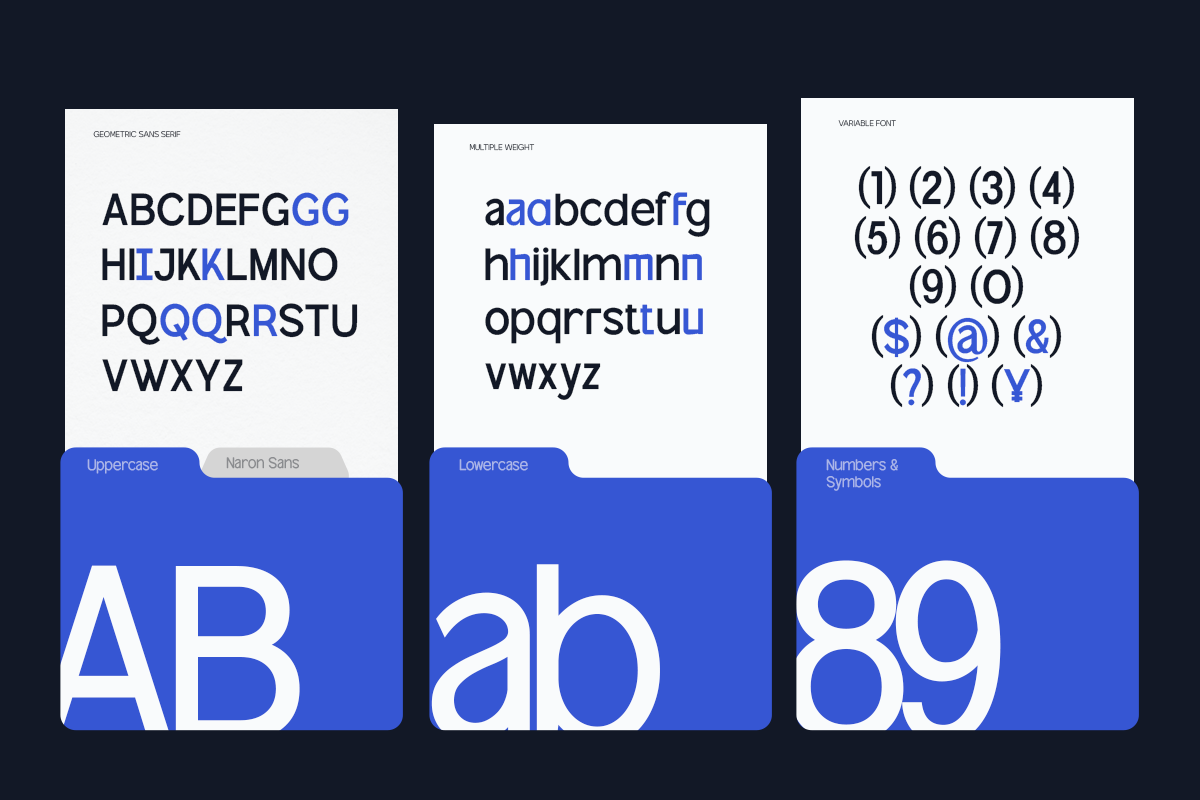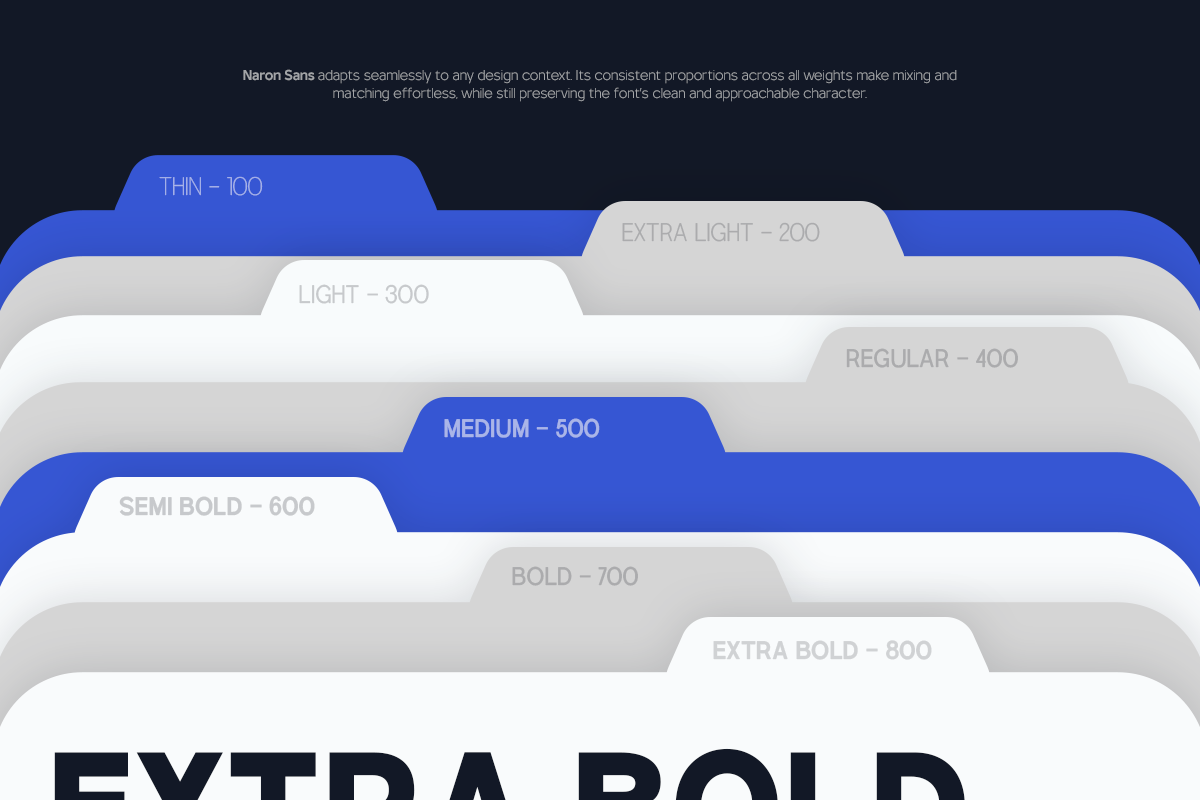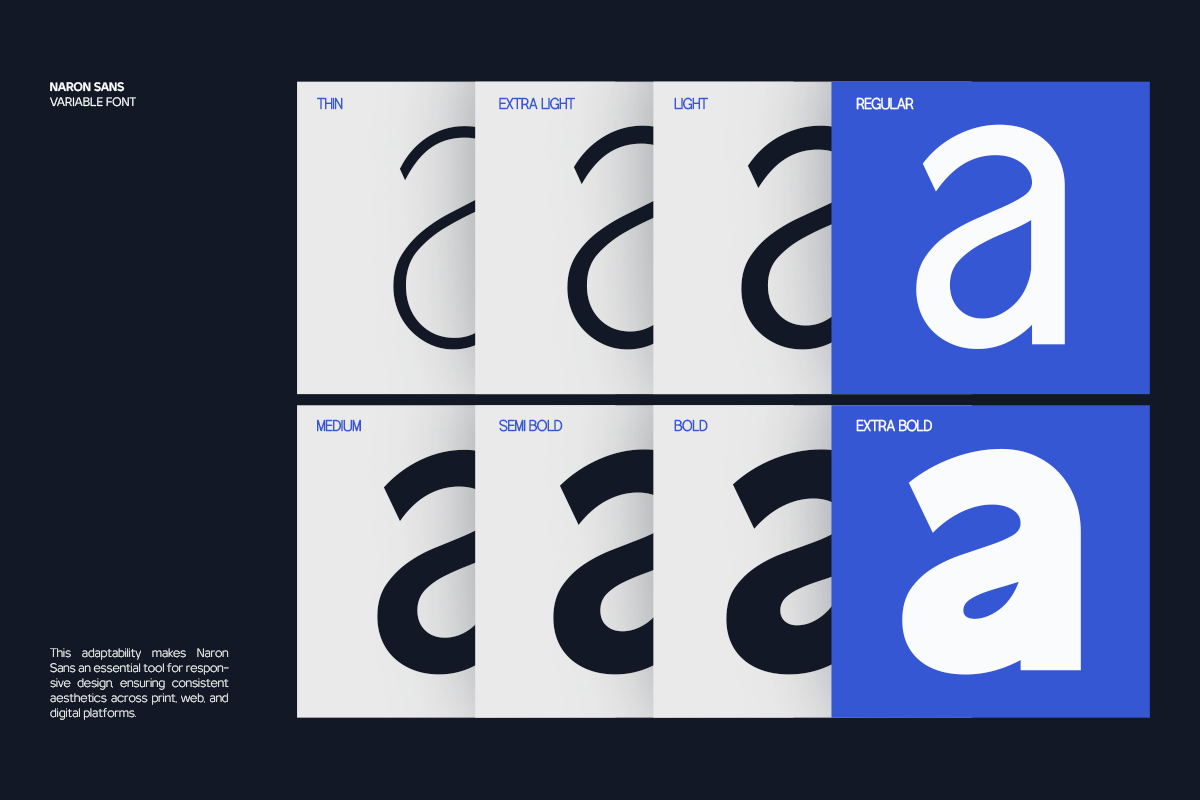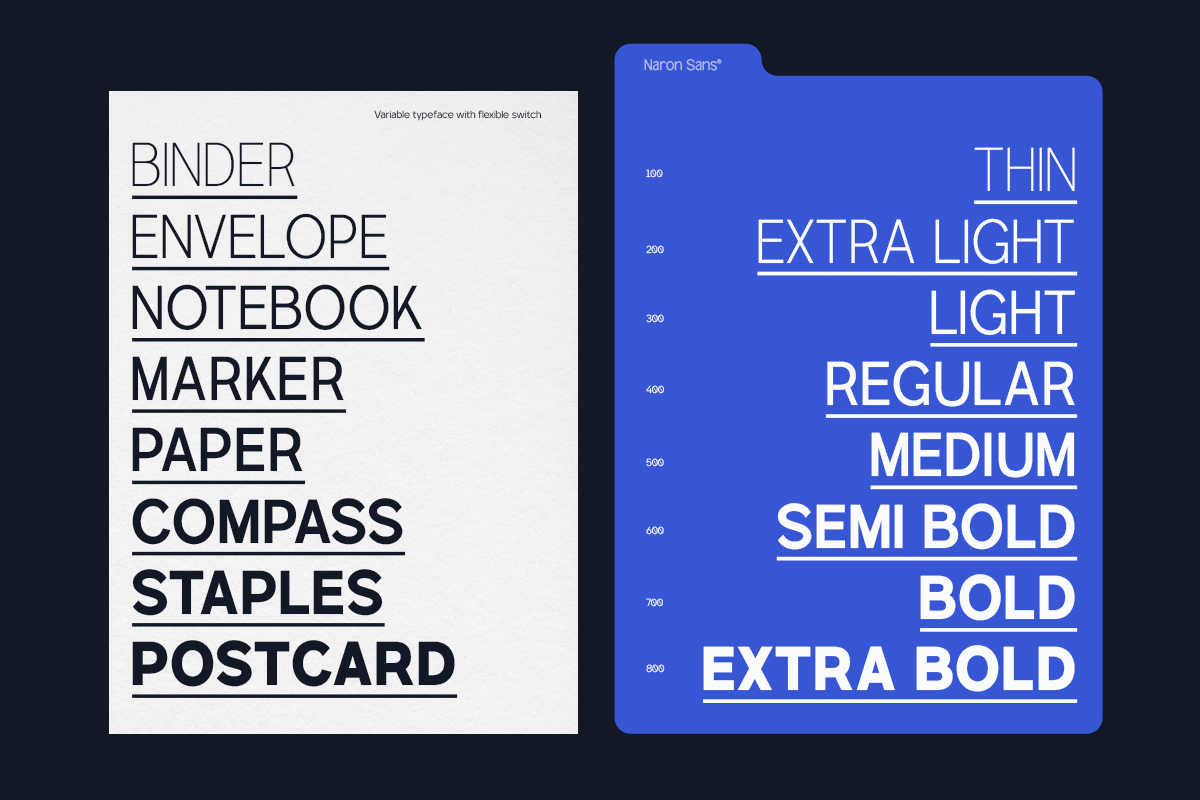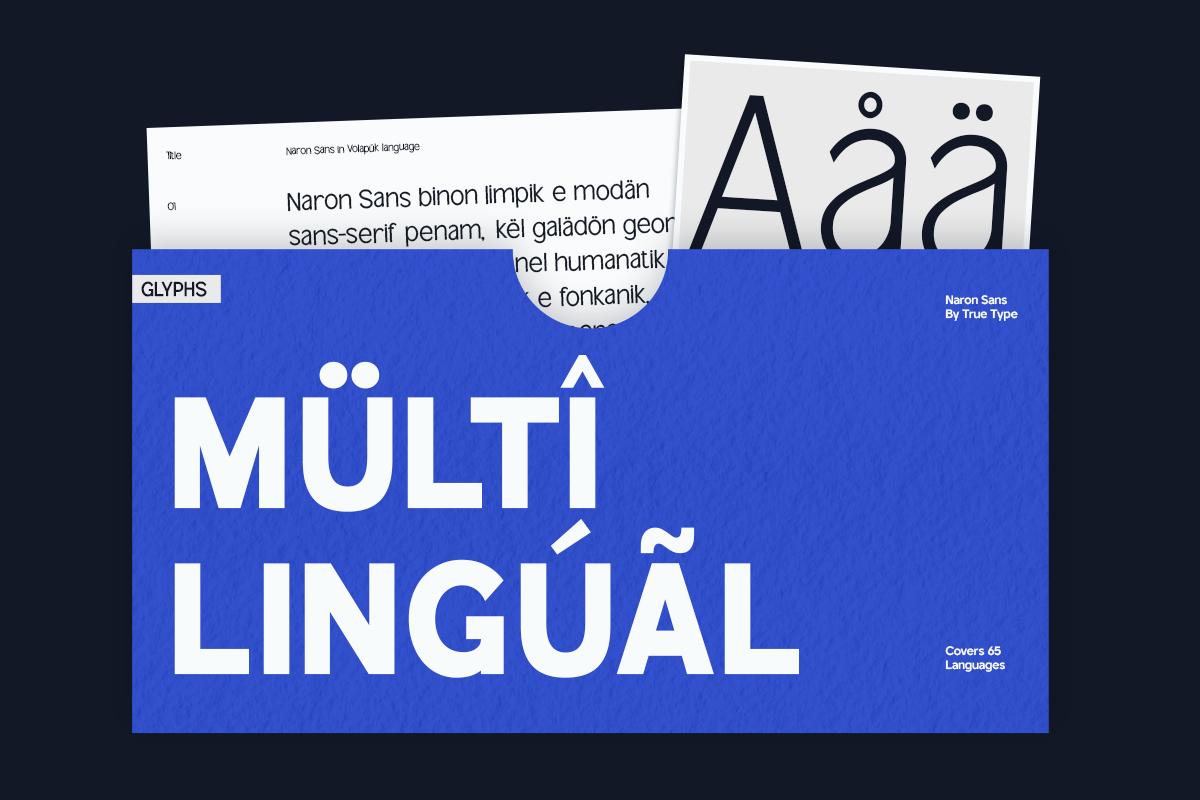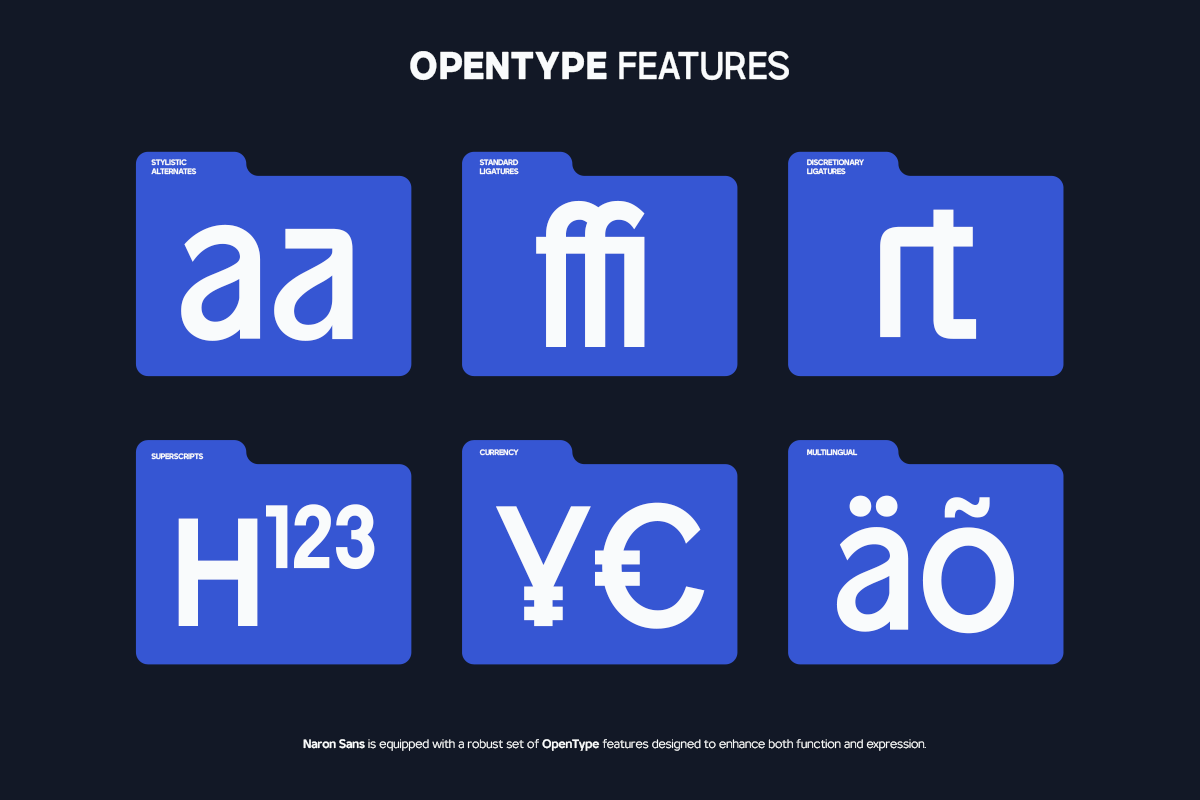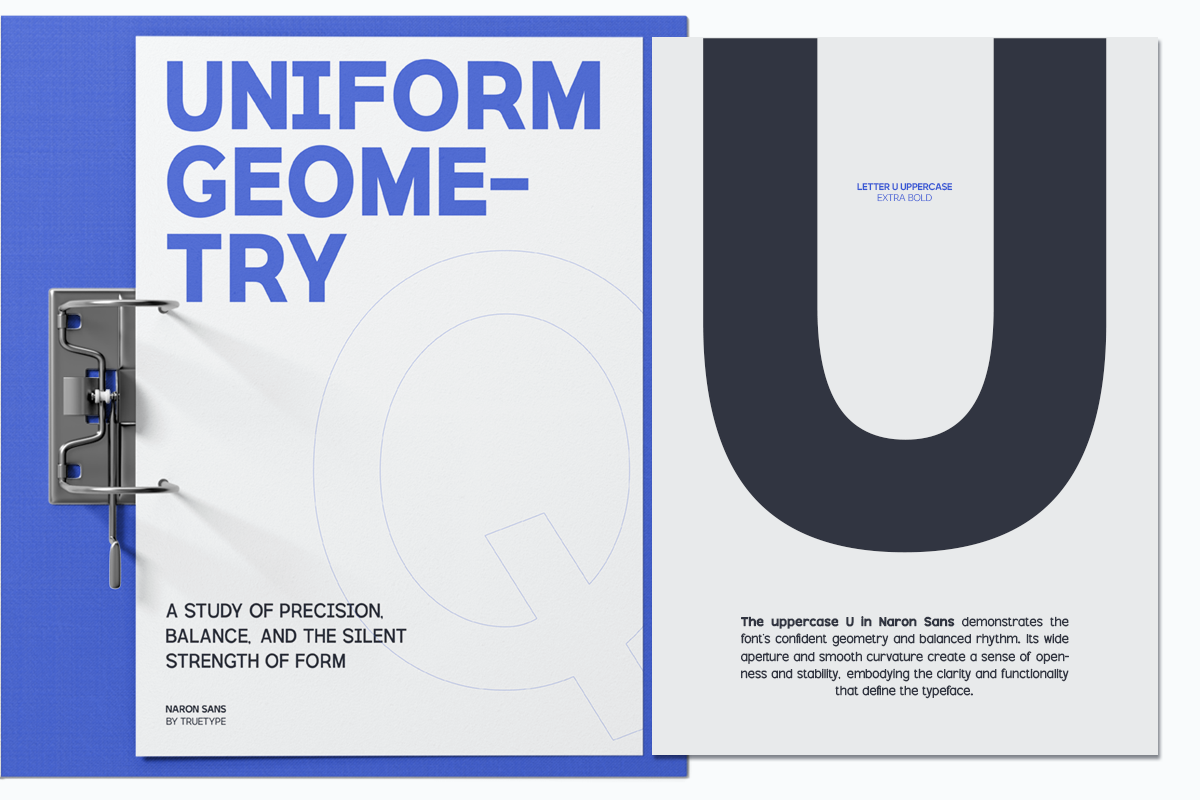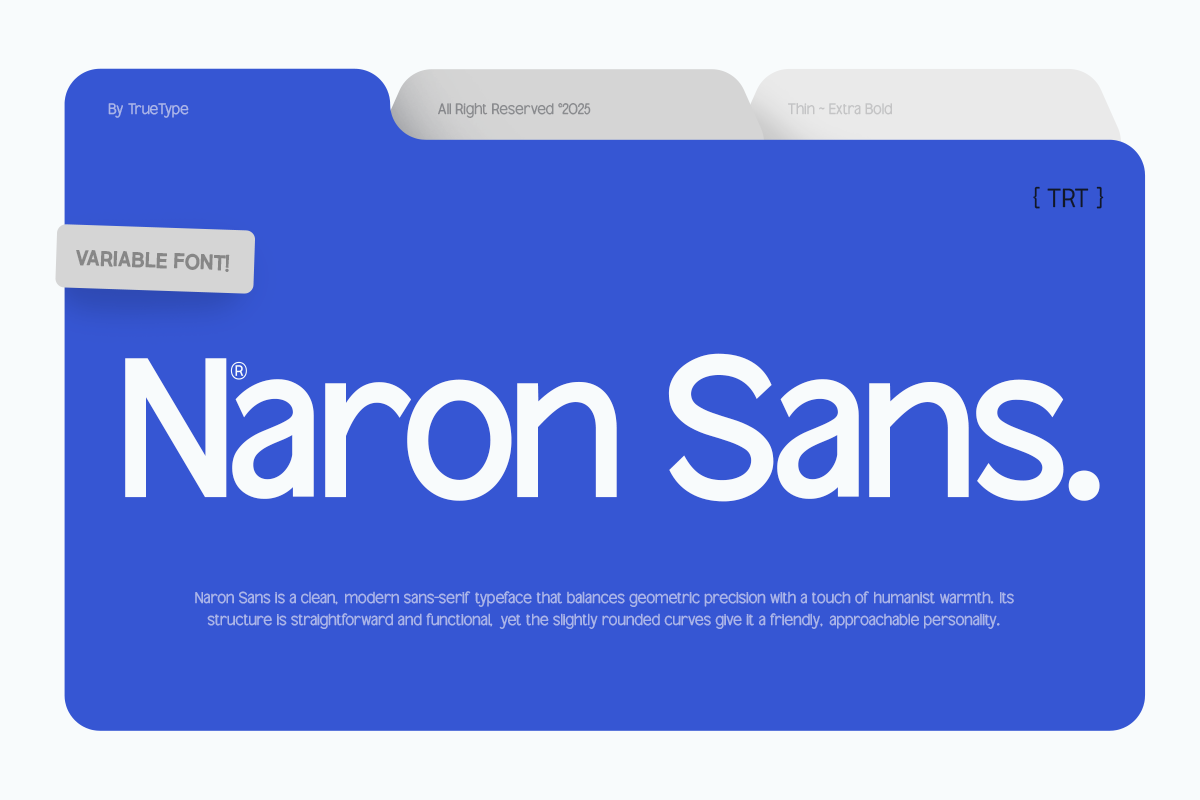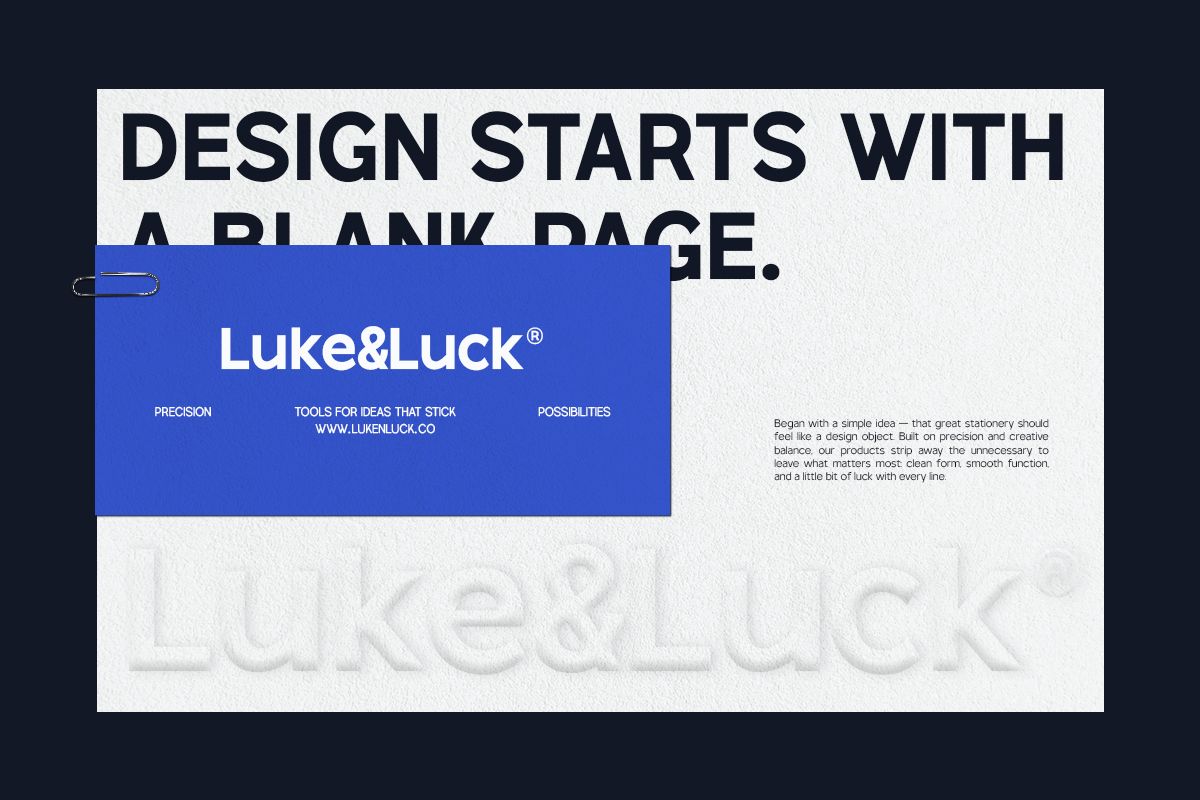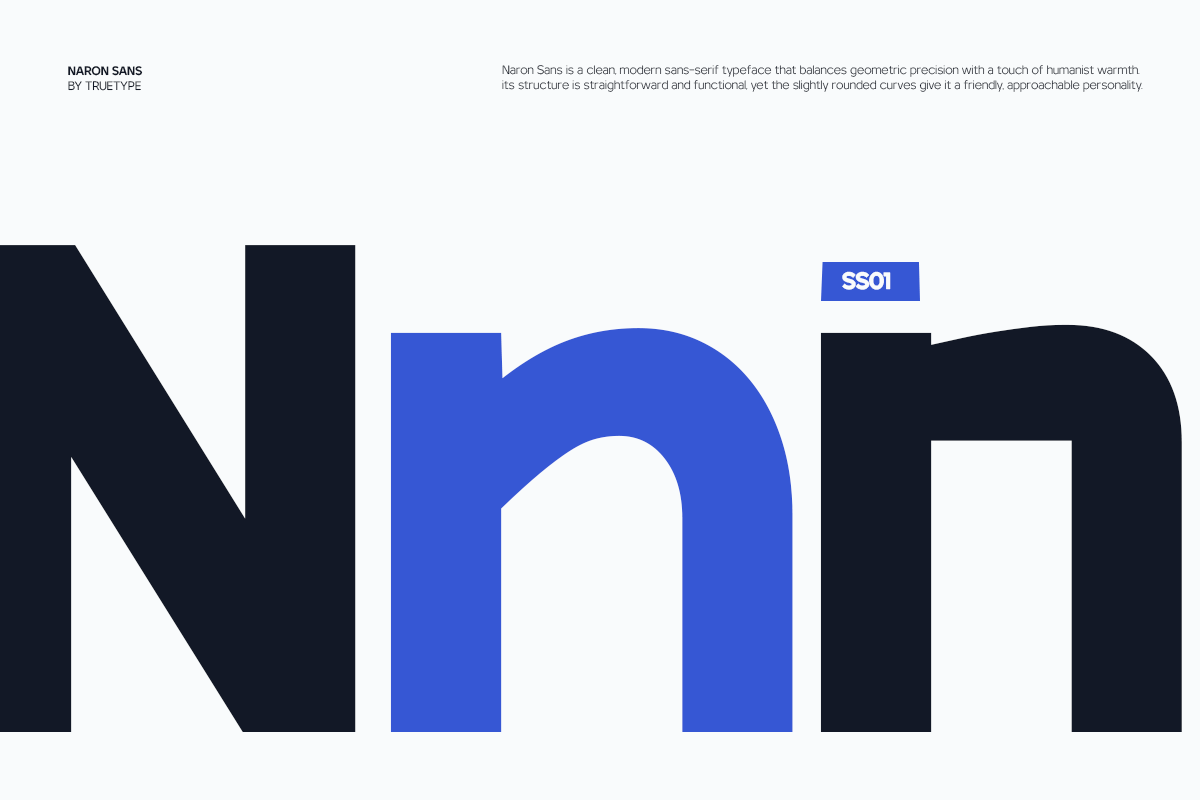
TRT Naron – Semi-Grotesque Sans Font
TRT Naron is a bold and modern sans serif typeface rooted in semi-grotesque tradition, reimagined for today’s visual language. With its clean geometry, confident curves, and subtle humanist touches, TT Naron strikes the perfect balance between clarity and personality.
Crafted for versatility, TRT Naron excels across a range of design applications — from digital interfaces and editorial layouts to impactful branding and bold display use. Its consistent rhythm and strong forms ensure readability in both large and small sizes, while its unique ligatures and refined letterforms offer a distinctive visual voice.
Whether you’re building a tech brand, designing UI/UX content, or creating modern packaging, TRT Naron provides the professional edge you need. It’s not just a font — it’s a toolkit for expressive, modern typography.